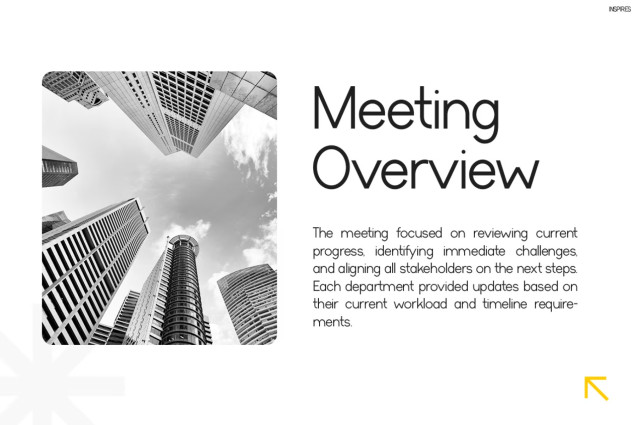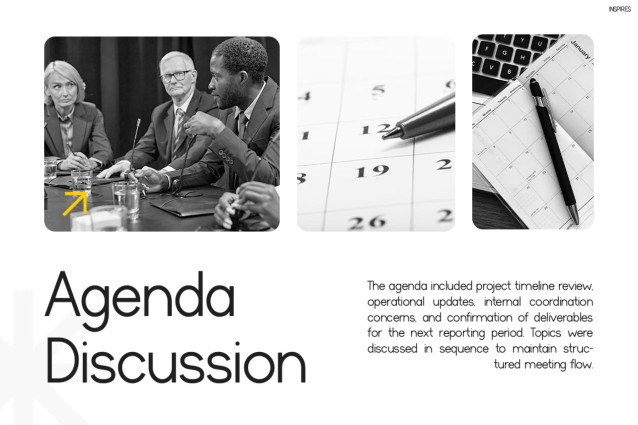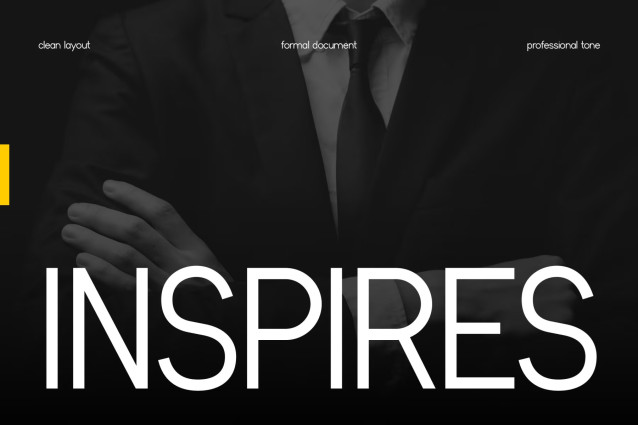
Inspires Font
Modern Font Inspires redefines clean typography with a fresh, contemporary edge that feels both sharp and effortlessly elegant. From the very first glance, this font captures attention through its balanced proportions, crisp strokes, and refined spacing. Unlike ordinary sans-serif fonts, it brings a distinctive visual rhythm that feels dynamic yet controlled.
Furthermore, its minimalist construction allows every letter to breathe, making your design look more structured and premium. Because of this, it works perfectly in both large-scale headlines and detailed layouts, ensuring clarity without sacrificing style.